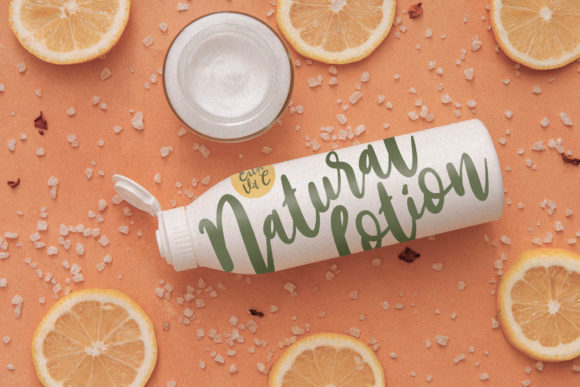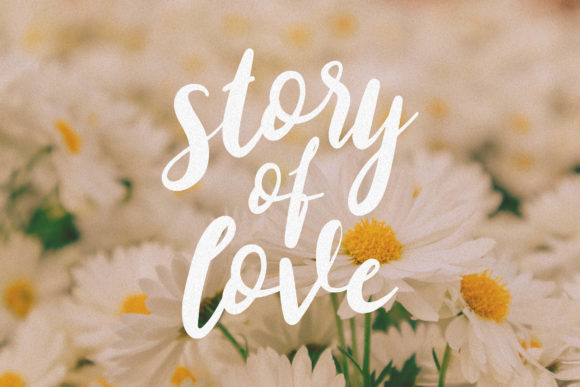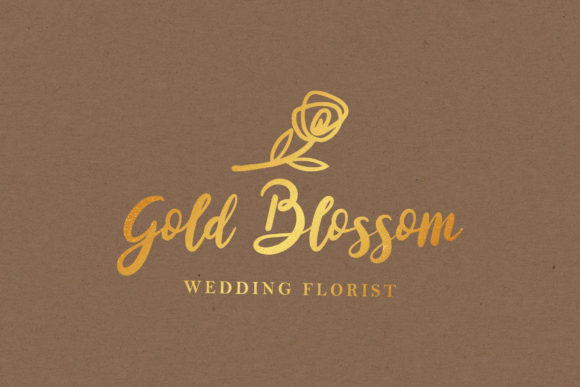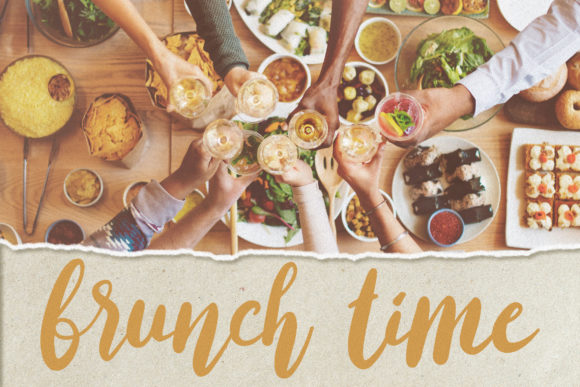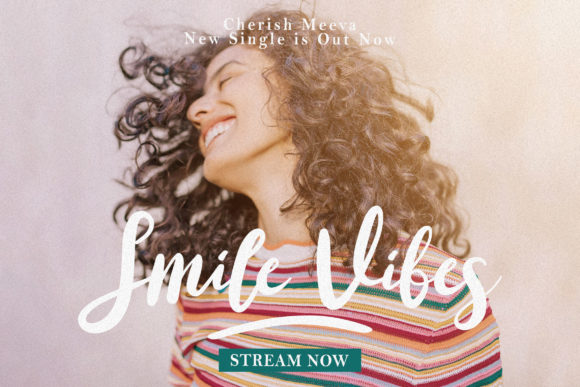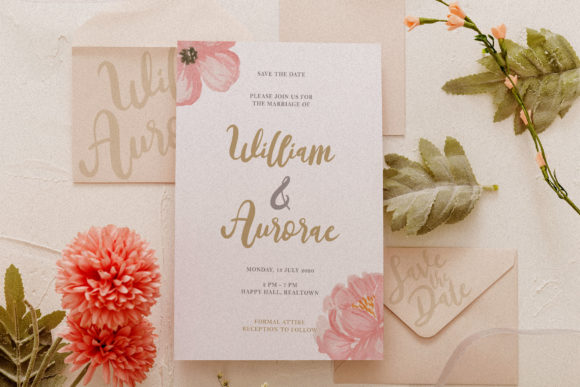
Introduction to Maurela Font
Maurela is an elegant and flowing handwritten font.
It is PUA encoded which means you can access all of the glyphs and swashes with ease It features a varying baseline, smooth lines, gorgeous glyphs and stunning alternates.
Key Features of Maurela Font
Why Choose Maurela Font?